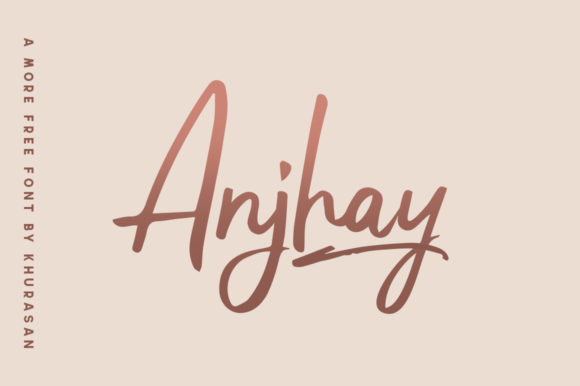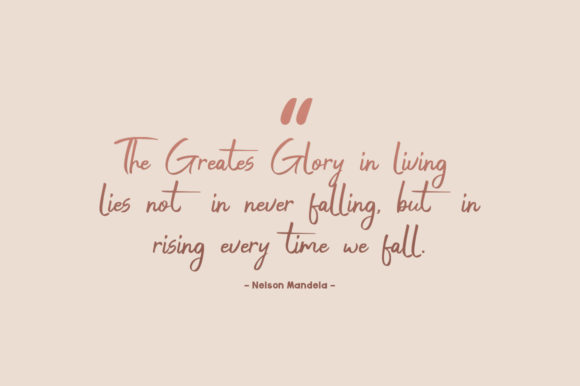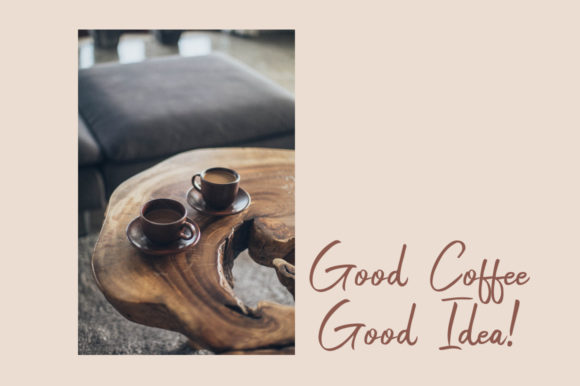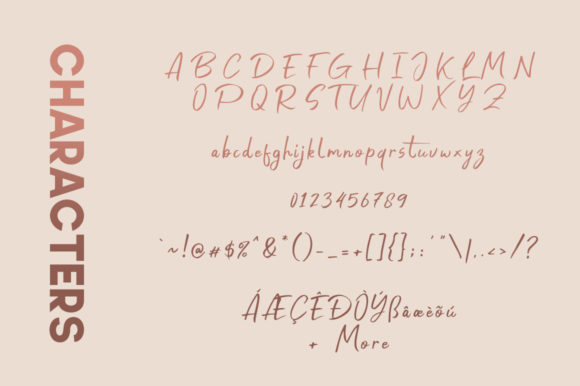
About Anjhay Font
Anjhay is a clean and professional handwritten font with a modern feel. Use it for ads, logos, branding or any other design that requires a cool look!